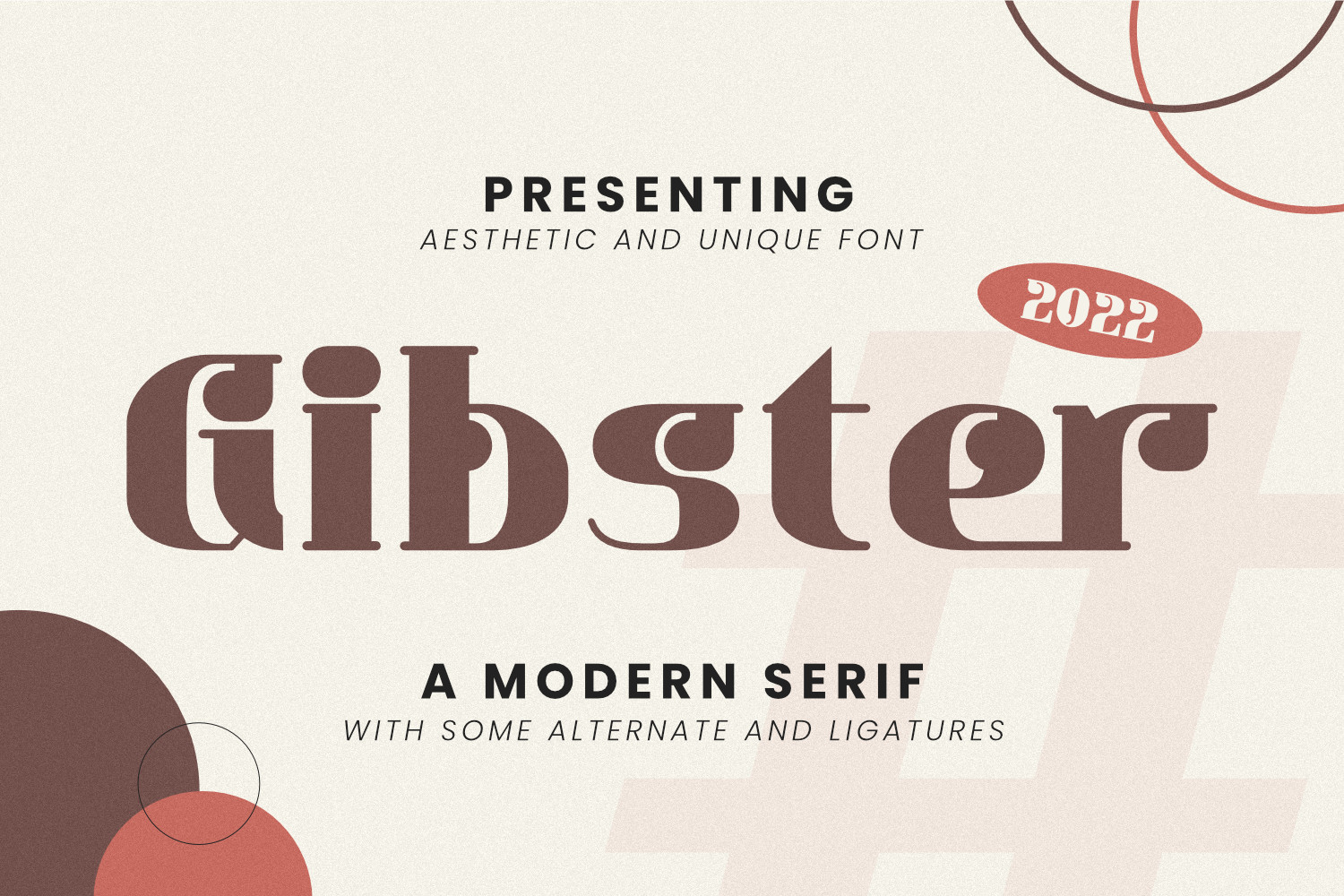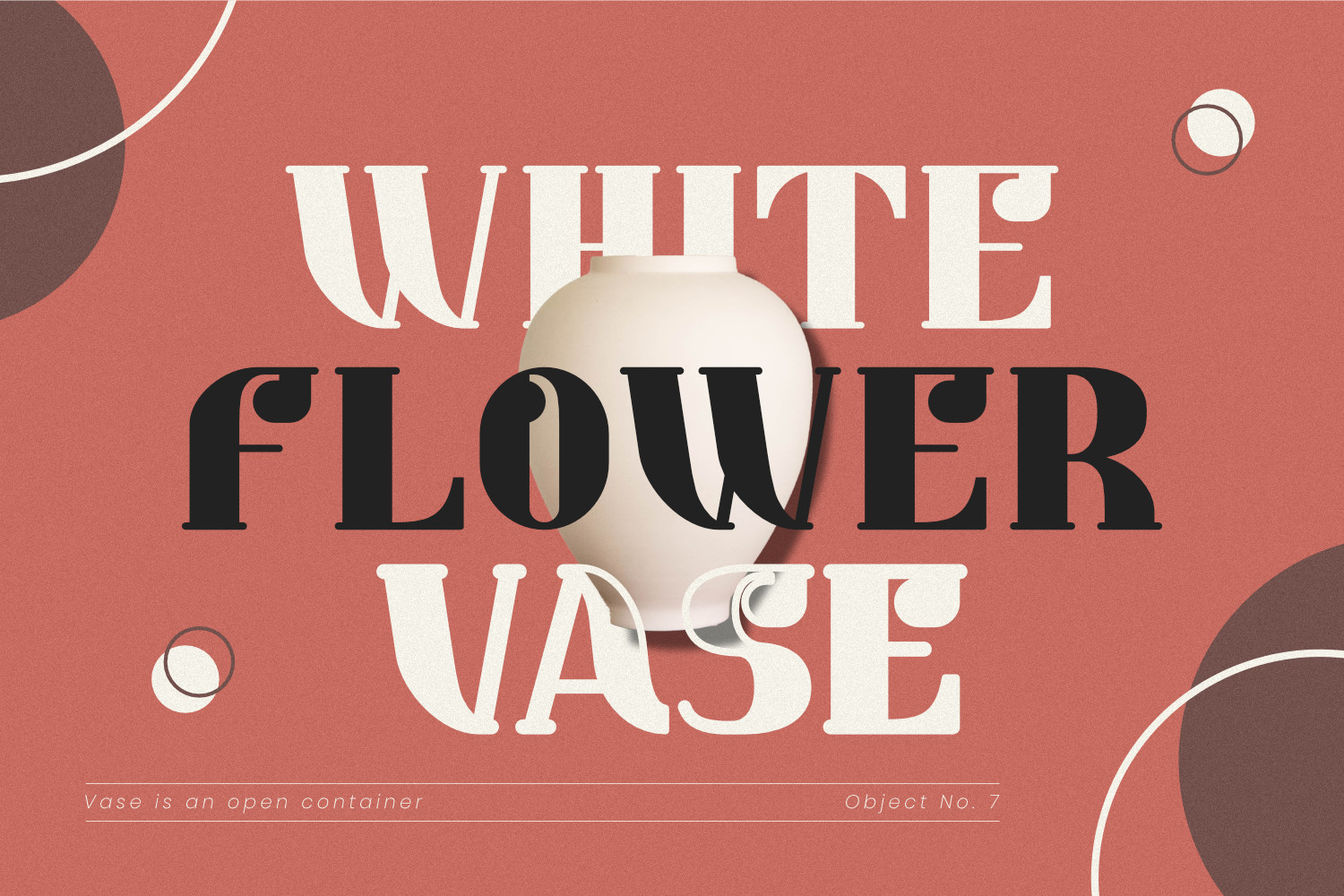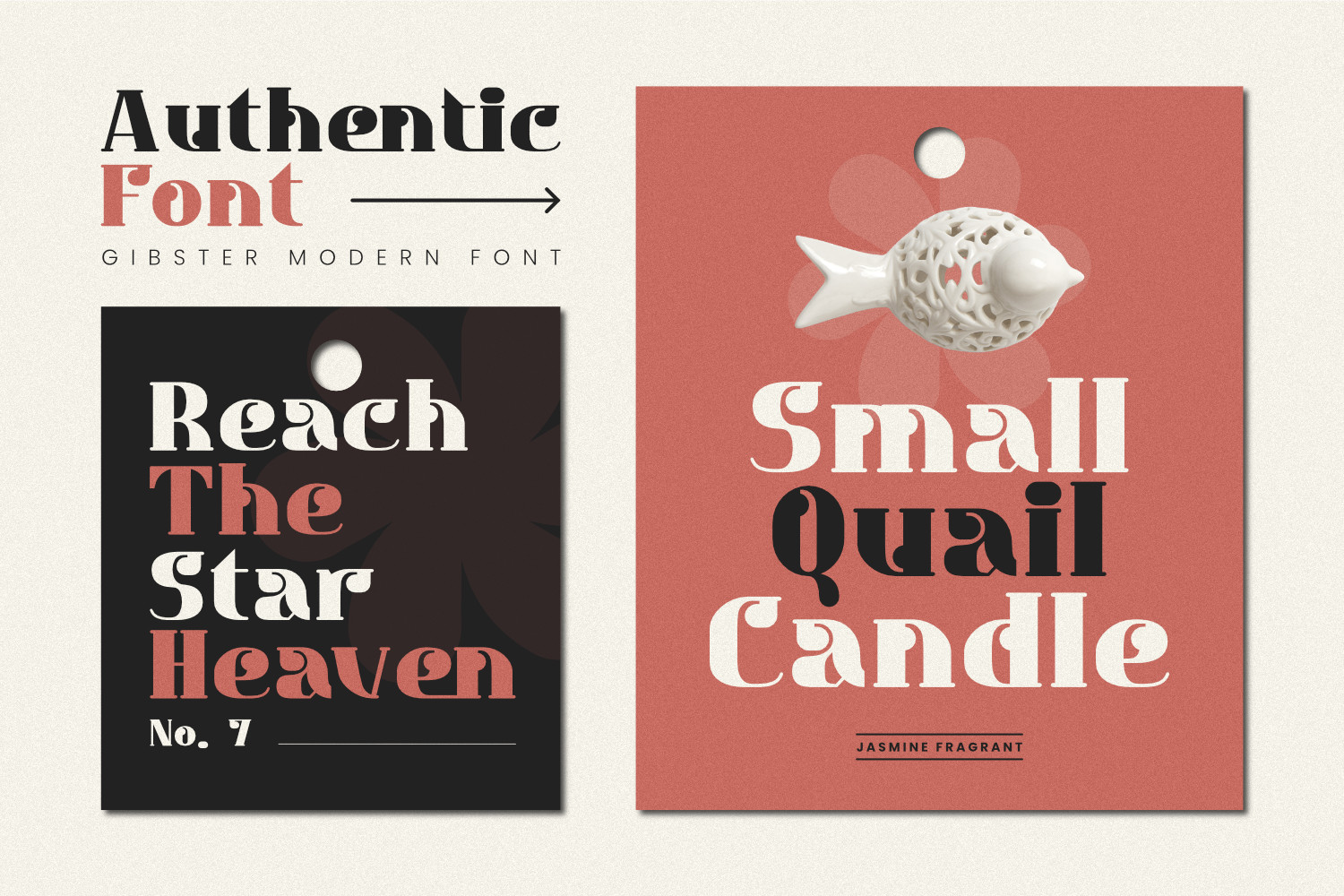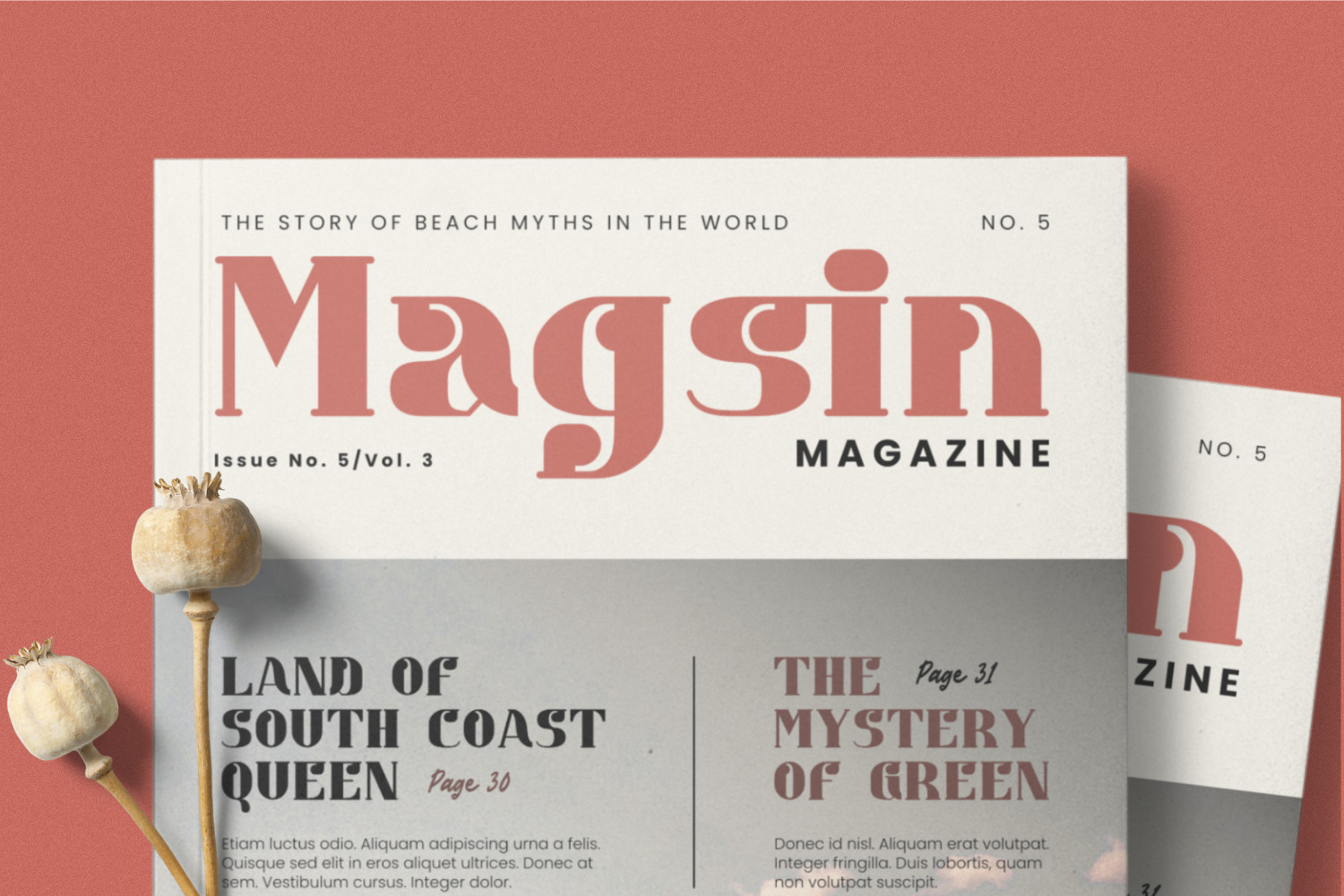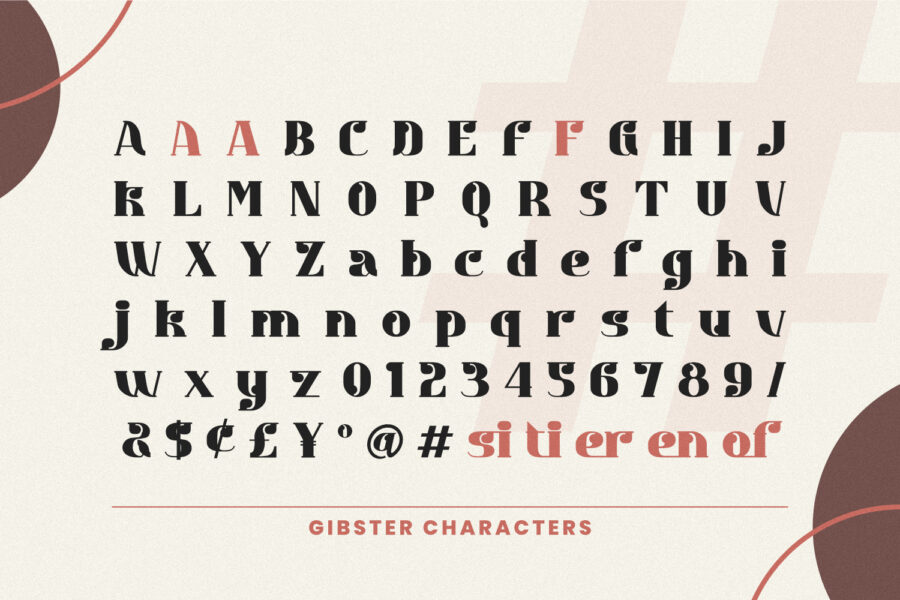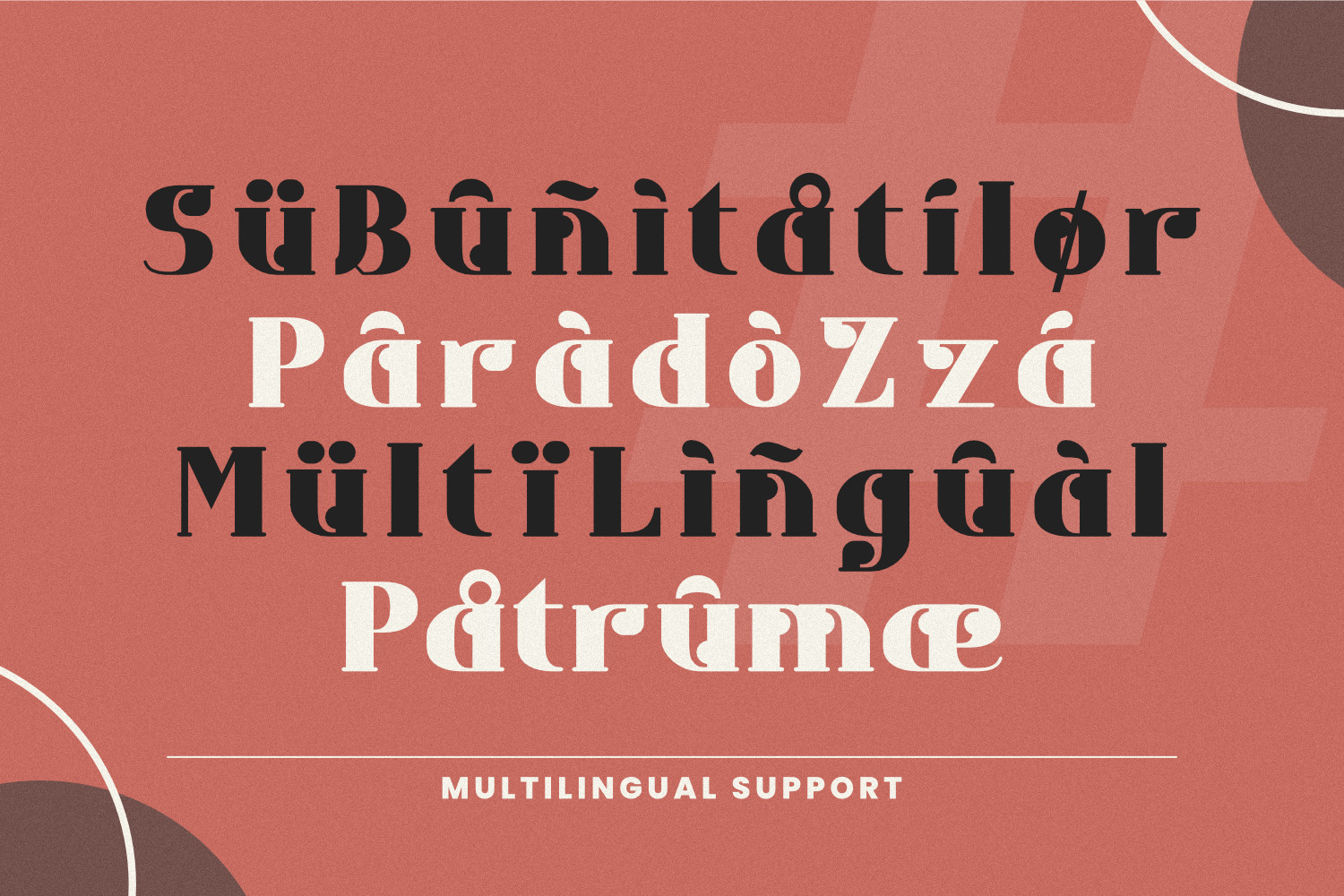
Gibster is a bold and modern serif font that brings a unique charm to your designs with its strong contrast, geometric strokes, and sharp yet playful terminals. Designed with aesthetics in mind, this font offers a fresh take on classic serif structures, featuring carefully crafted alternates and distinctive ligatures that enhance visual interest and rhythm in any composition.
Perfect for branding, editorial layouts, packaging, and bold display headlines, Gibster elevates your typography with personality and versatility. Its multilingual support and stylized alternates make it ideal for both digital and print use, offering designers a complete toolset for creating captivating and impactful work.